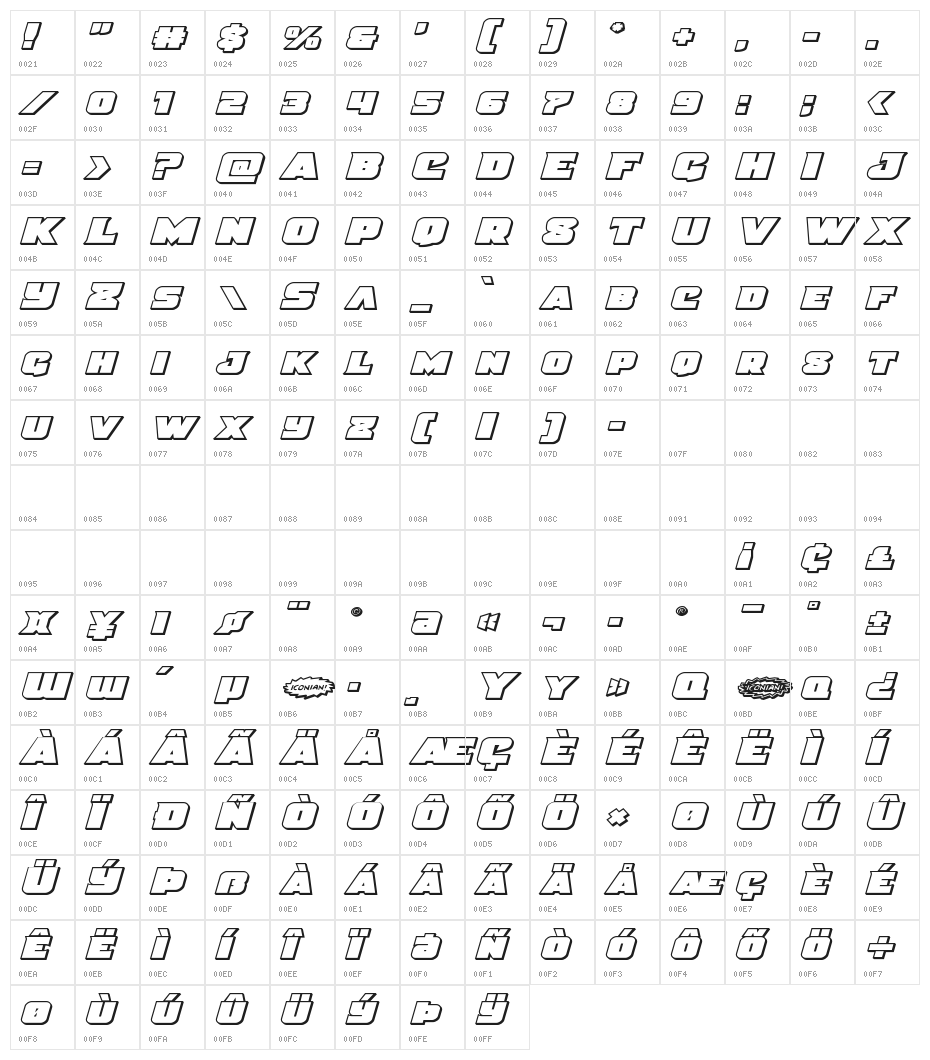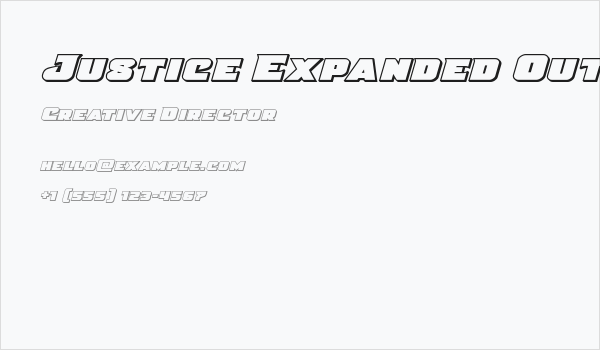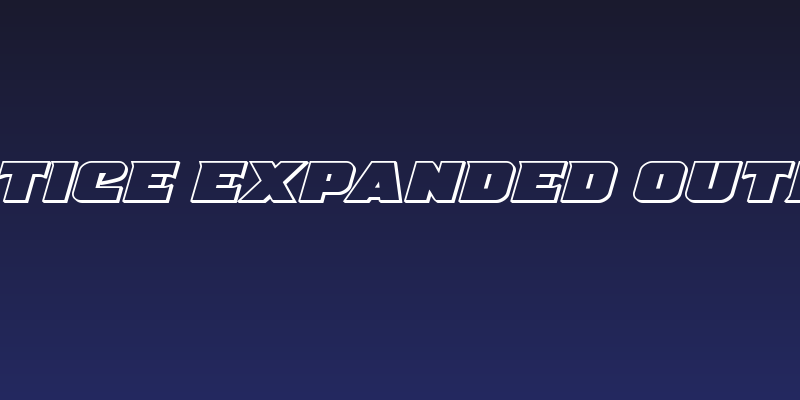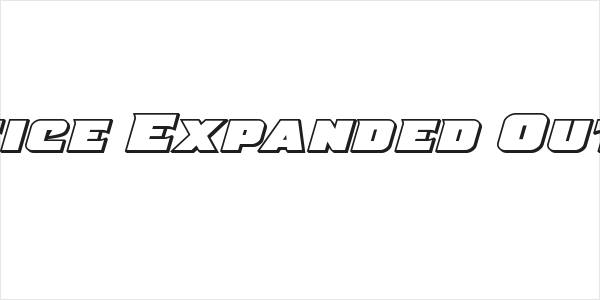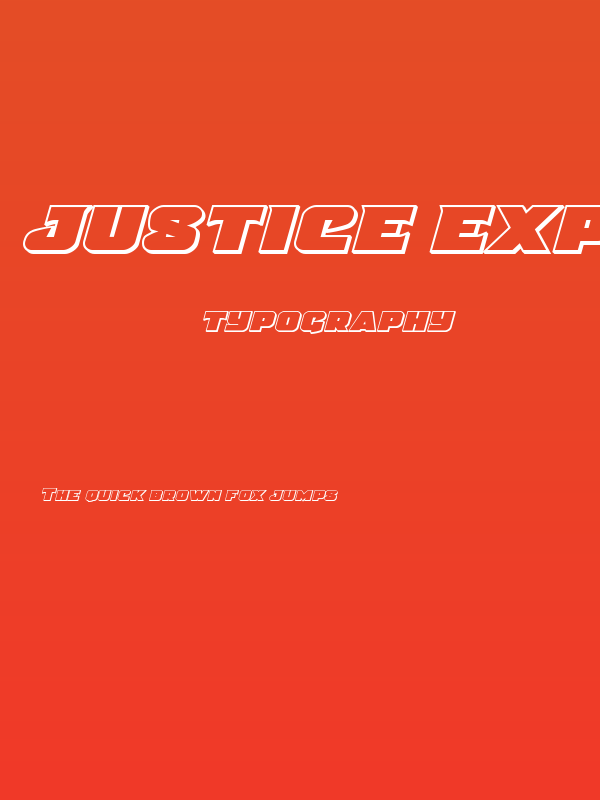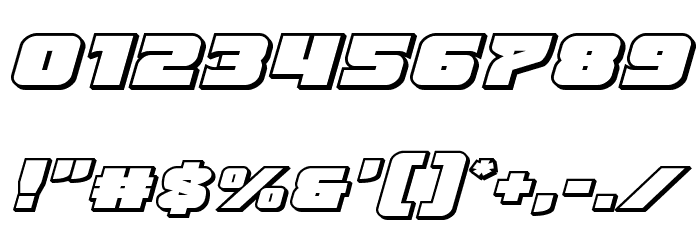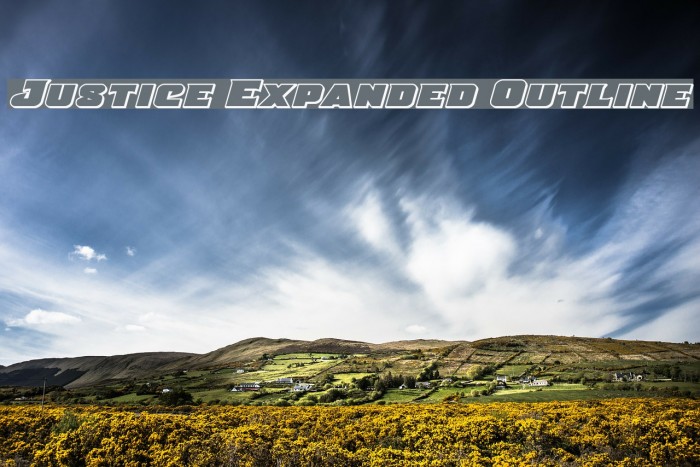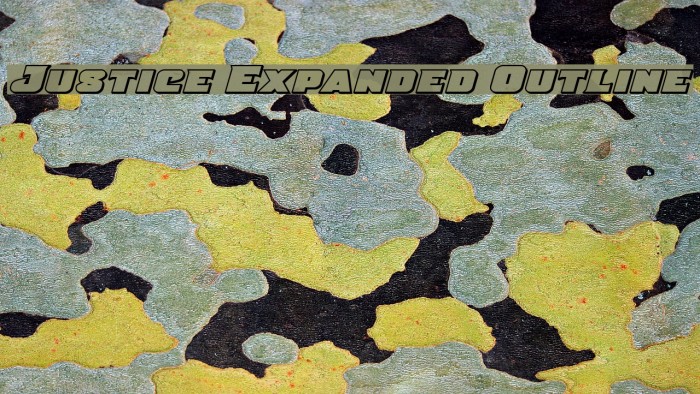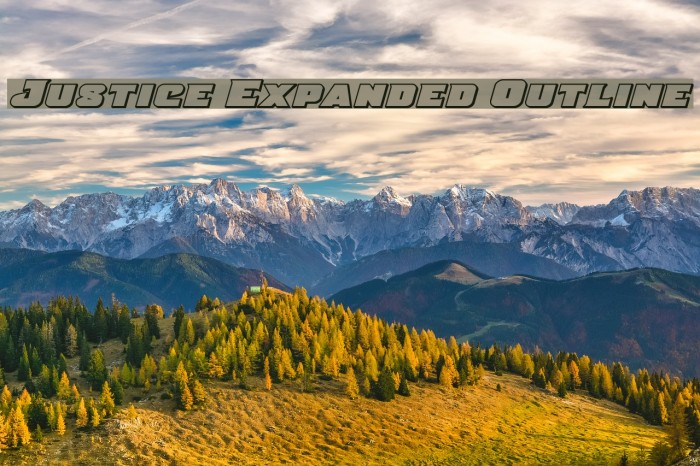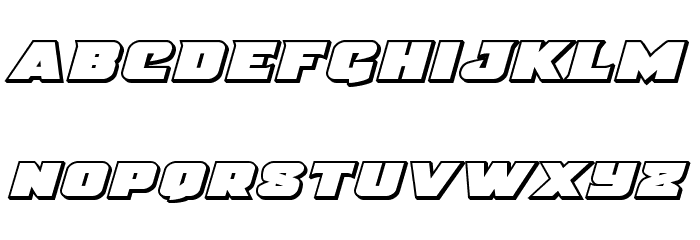
Justice Expanded Outline Font
Justice Expanded Outline Description
This font features a bold, expanded outline style that gives it a strong and impactful presence. The characters are uppercase with a distinct geometric shape, emphasizing sharp angles and clean lines. The outline effect adds a sense of depth and dimension, making the letters stand out prominently. The font's design is modern and dynamic, suitable for projects that require a bold statement. The spacing between characters is normal, ensuring readability while maintaining its striking appearance. This style is ideal for attention-grabbing headlines and titles.